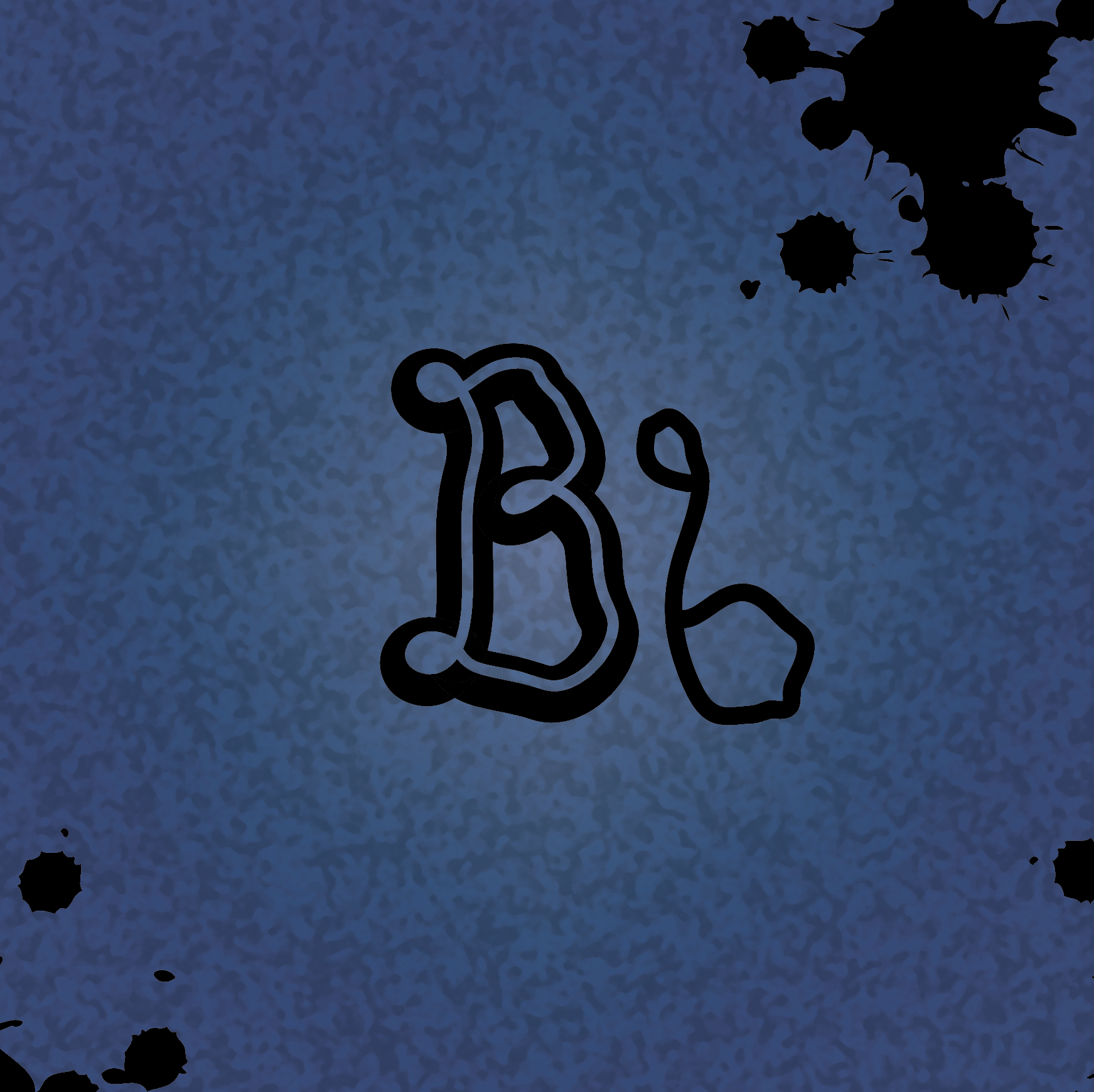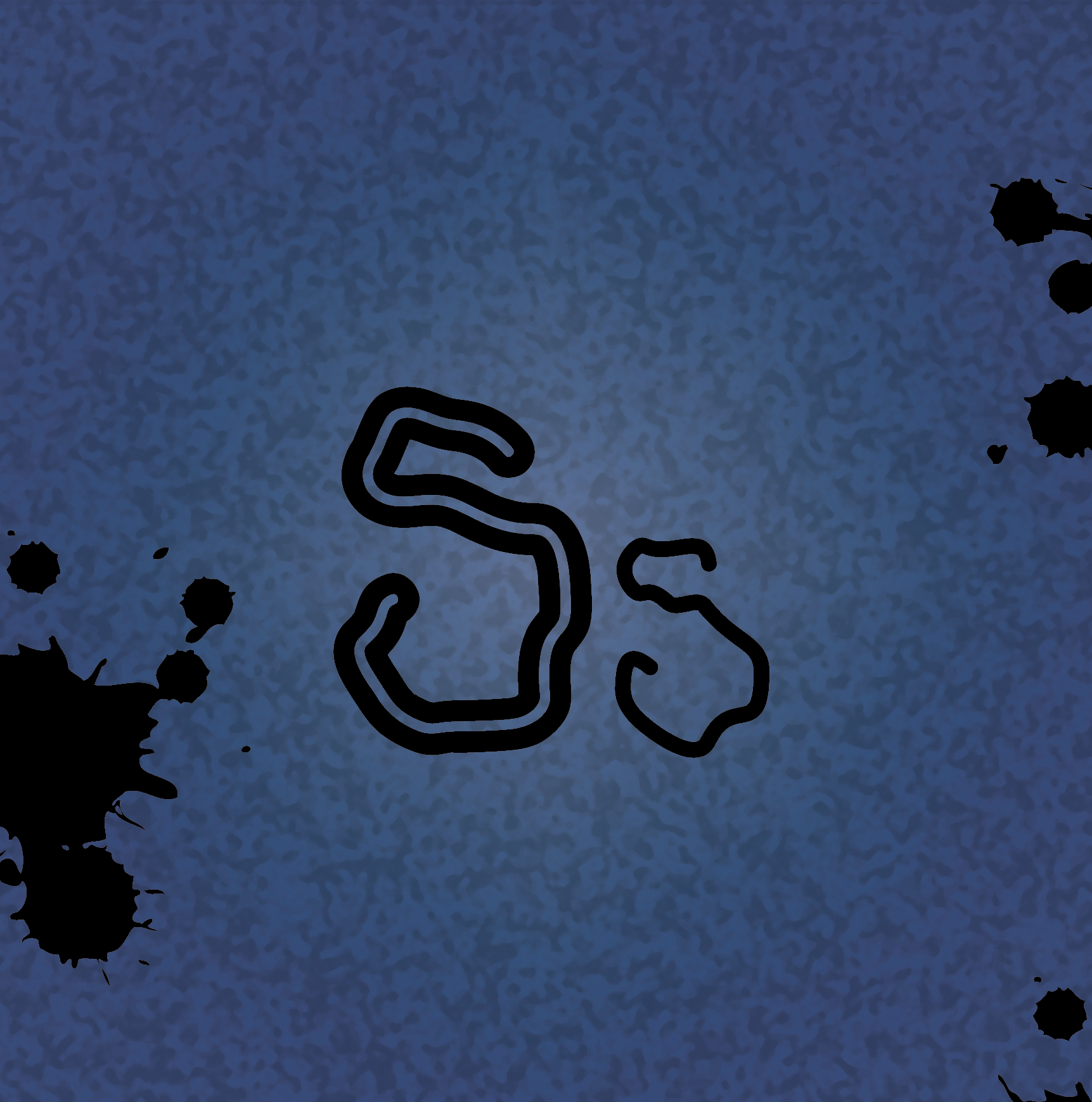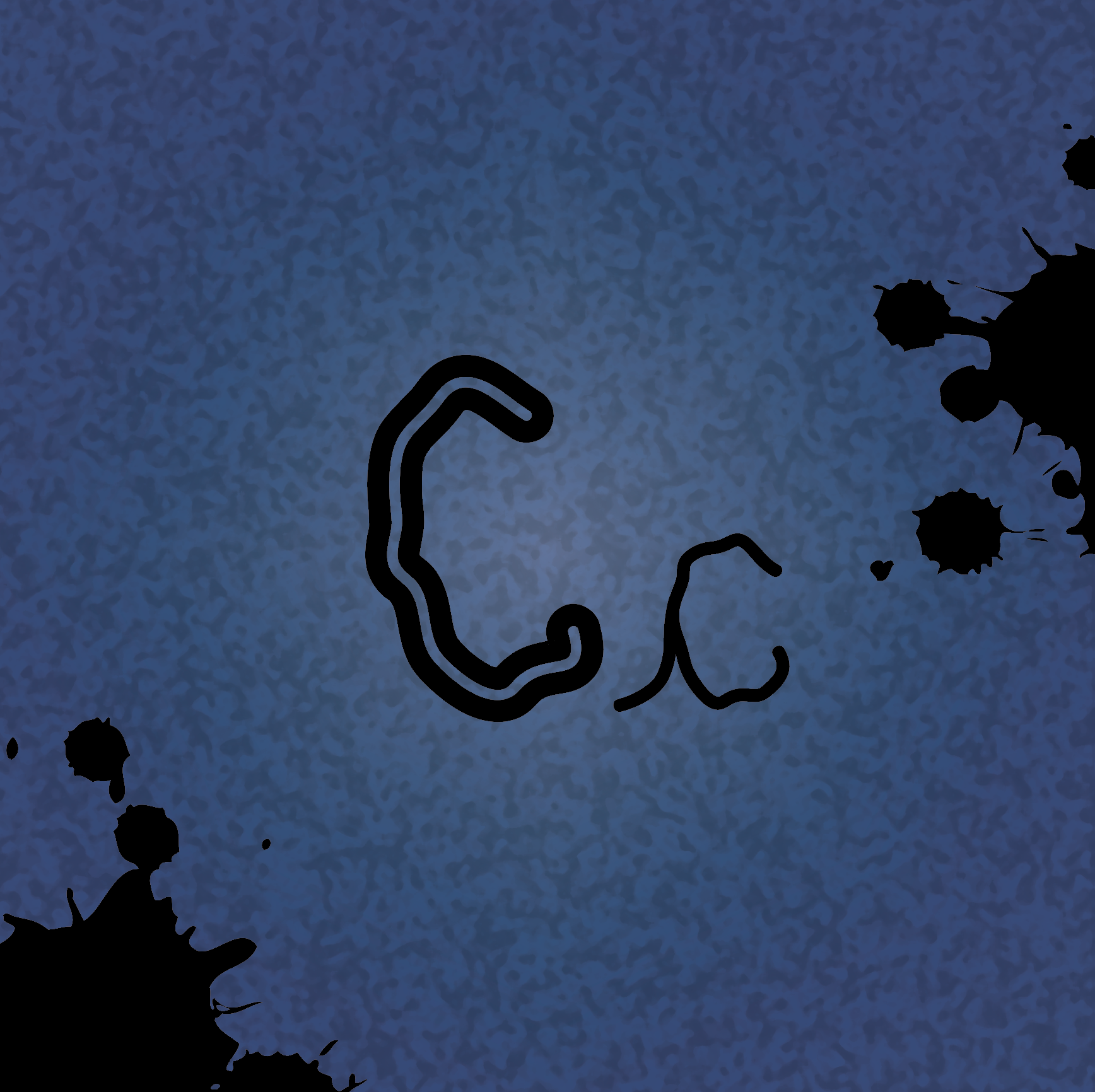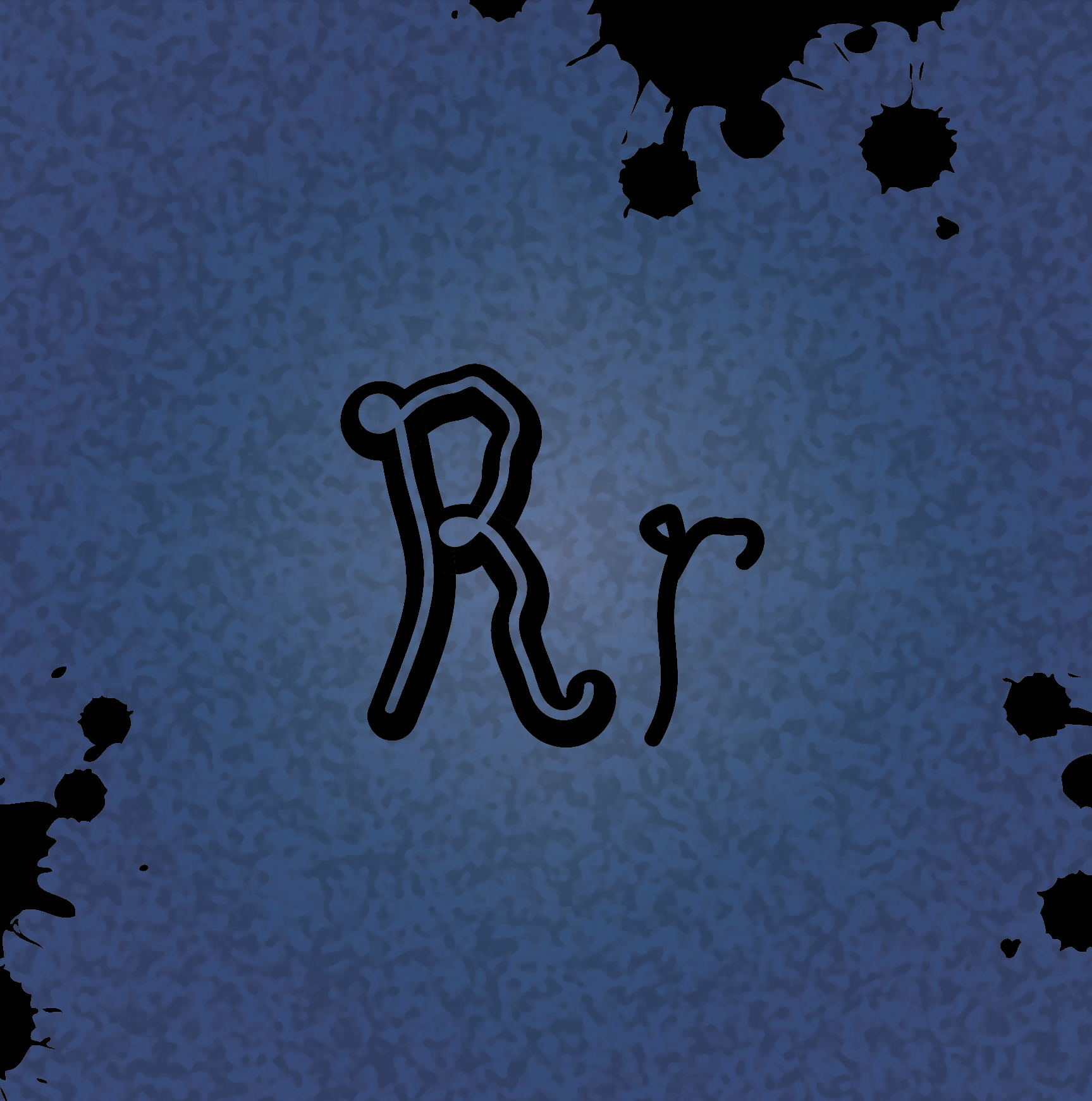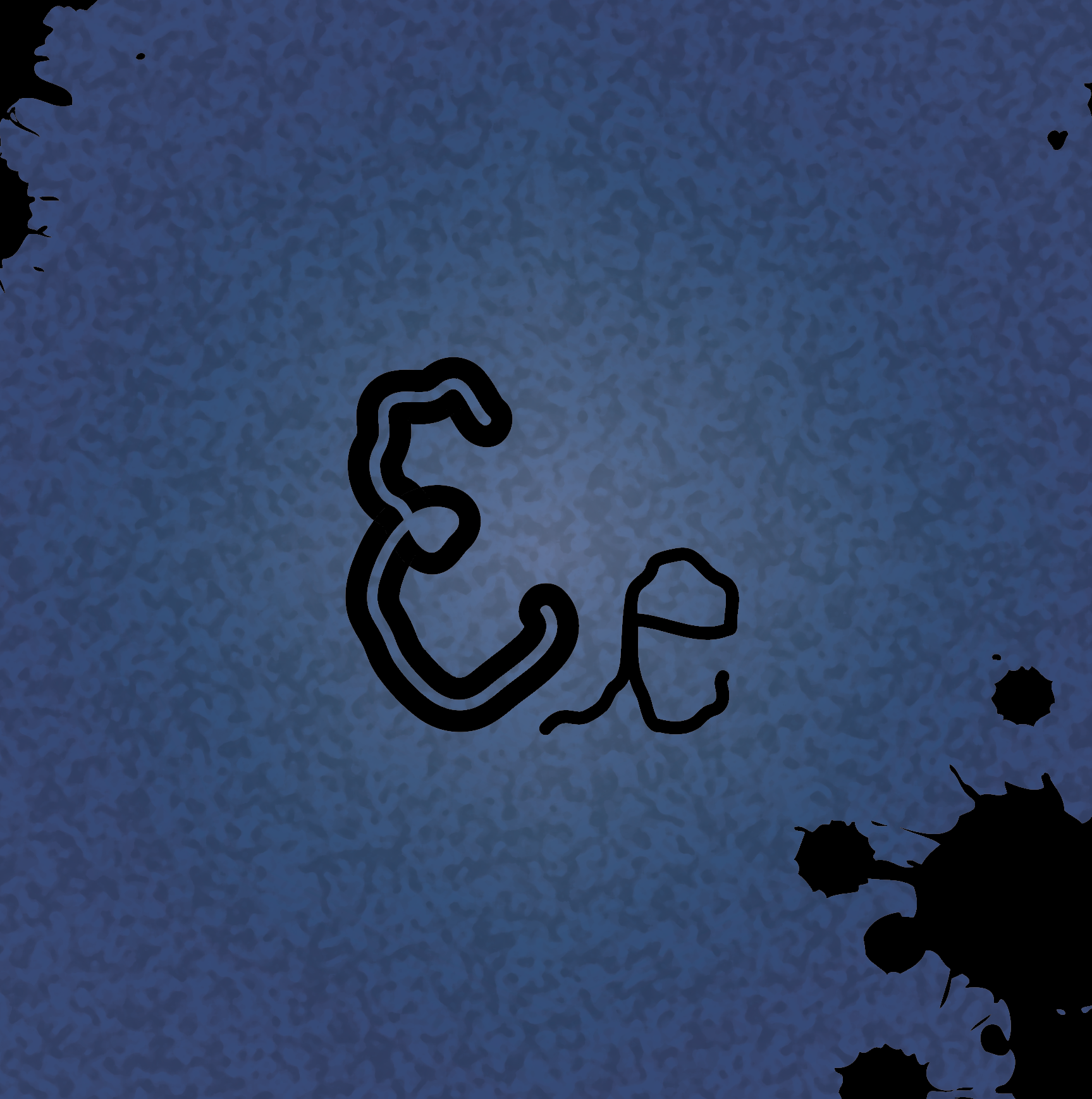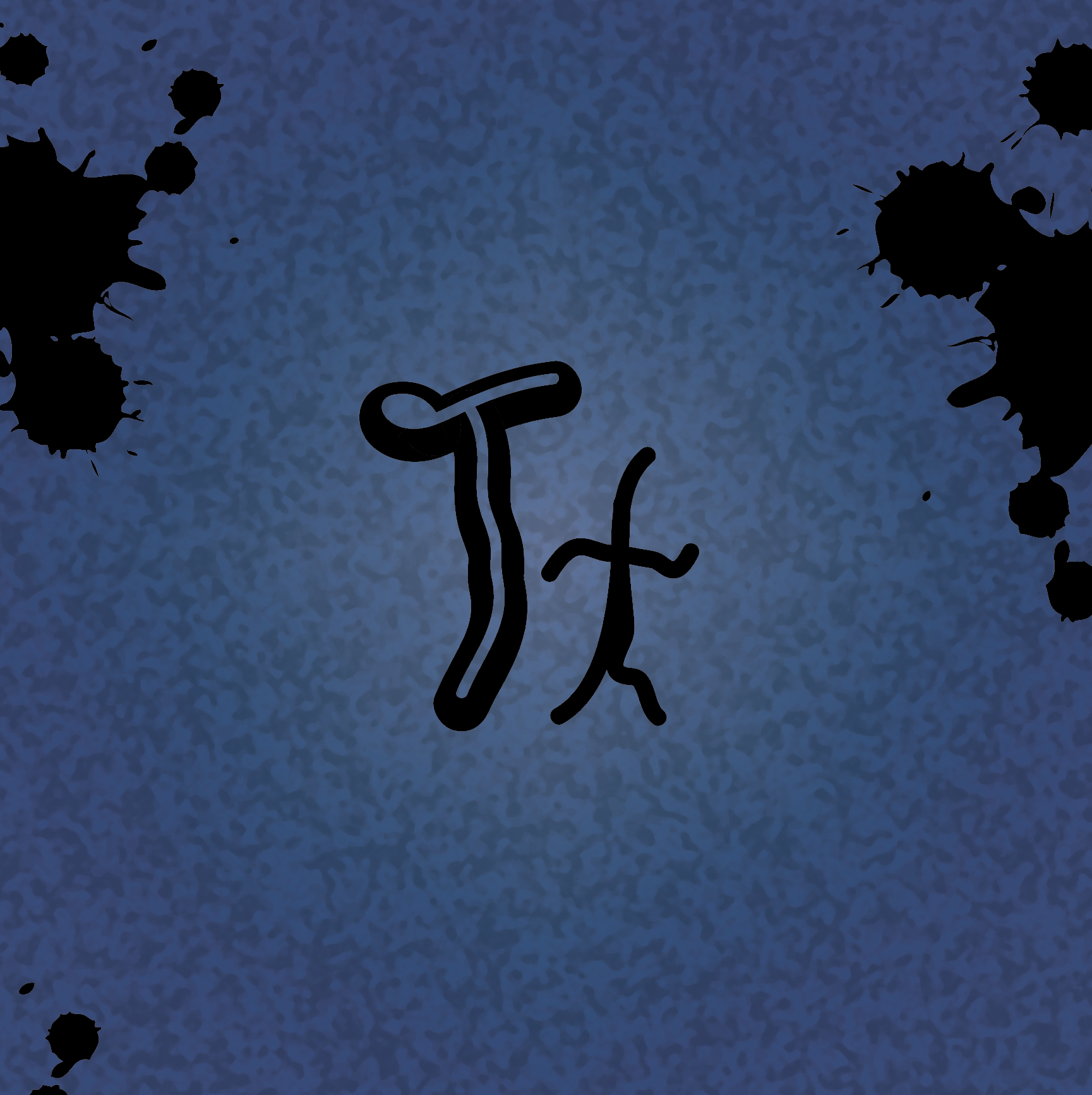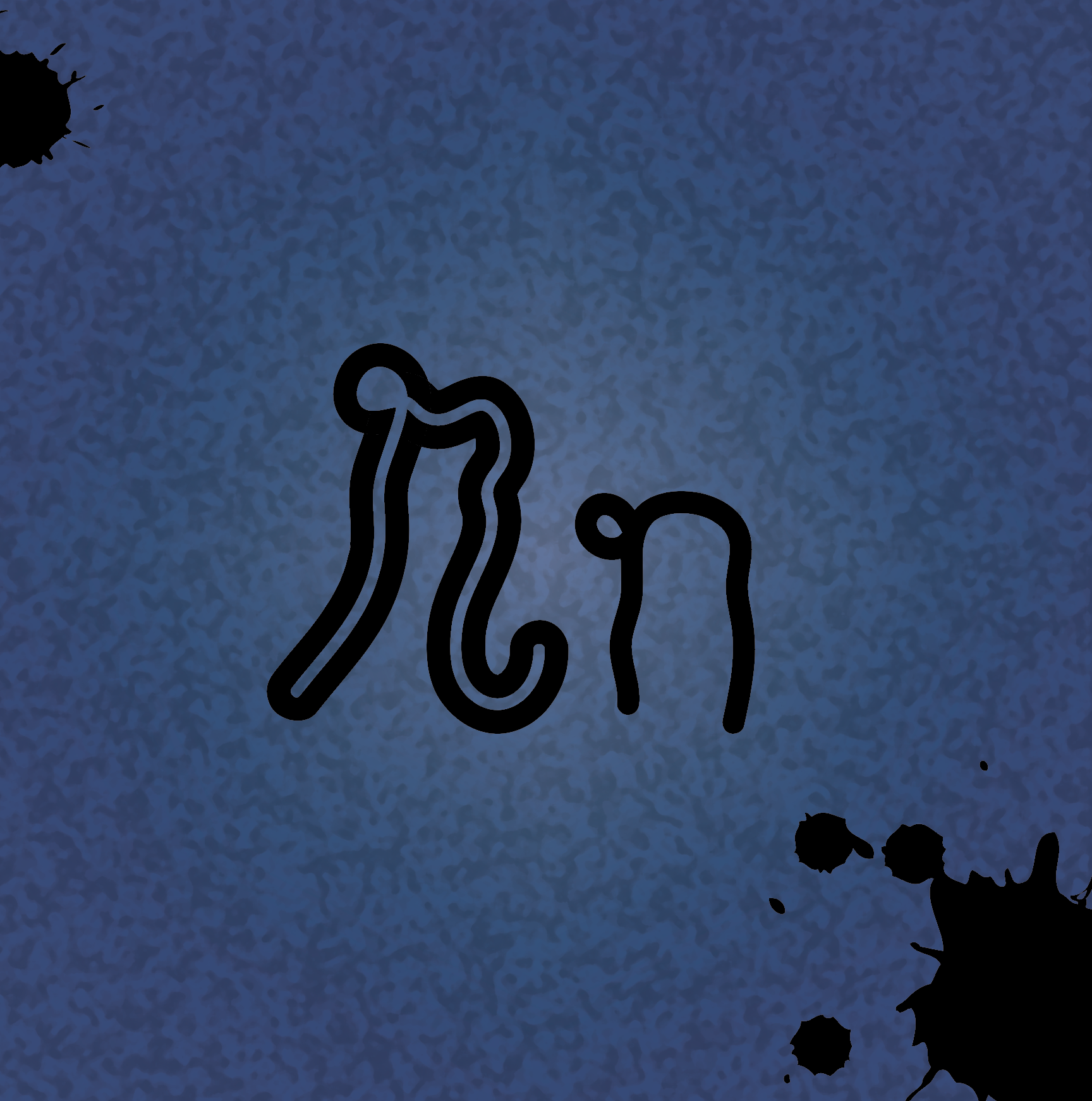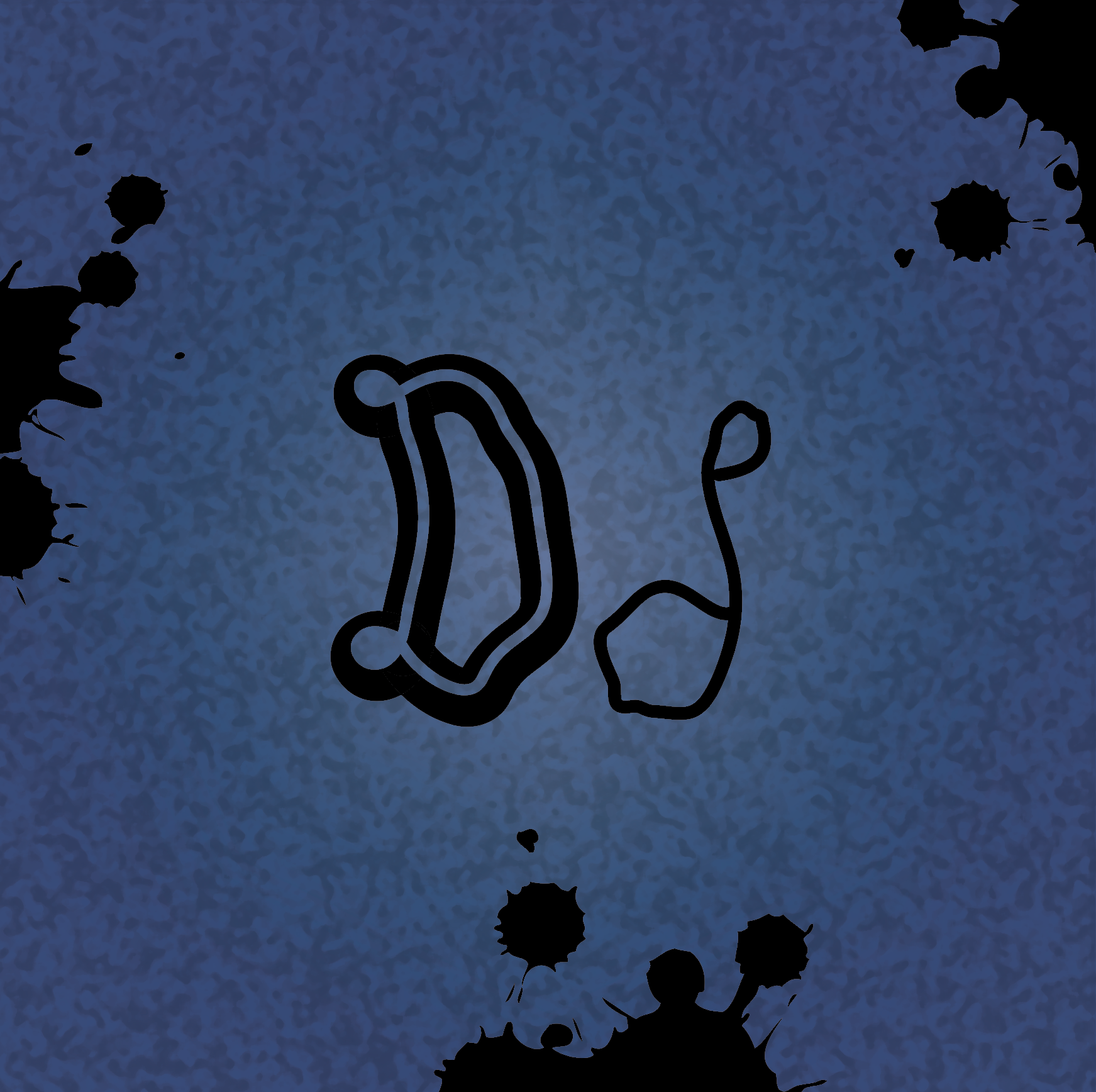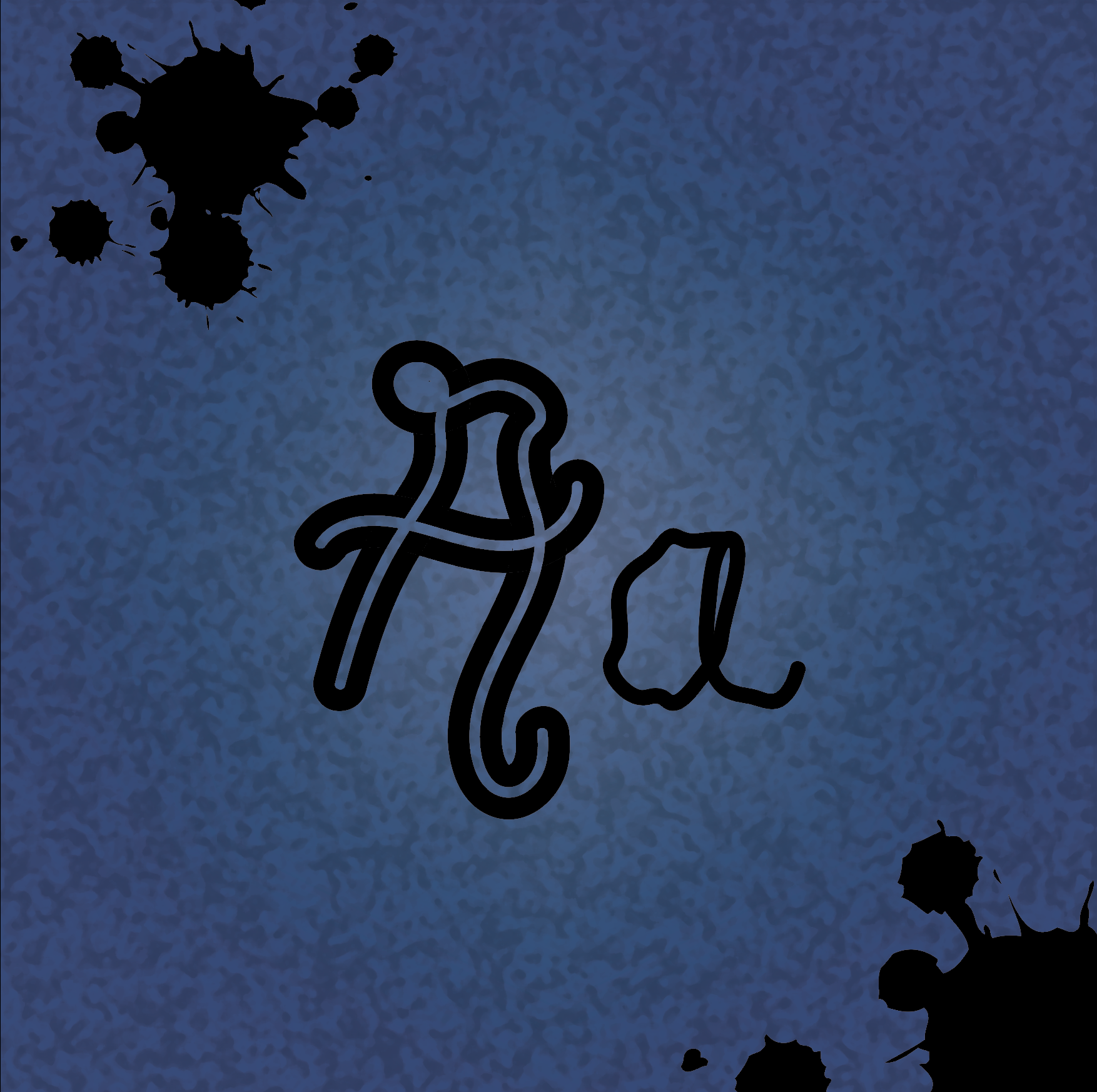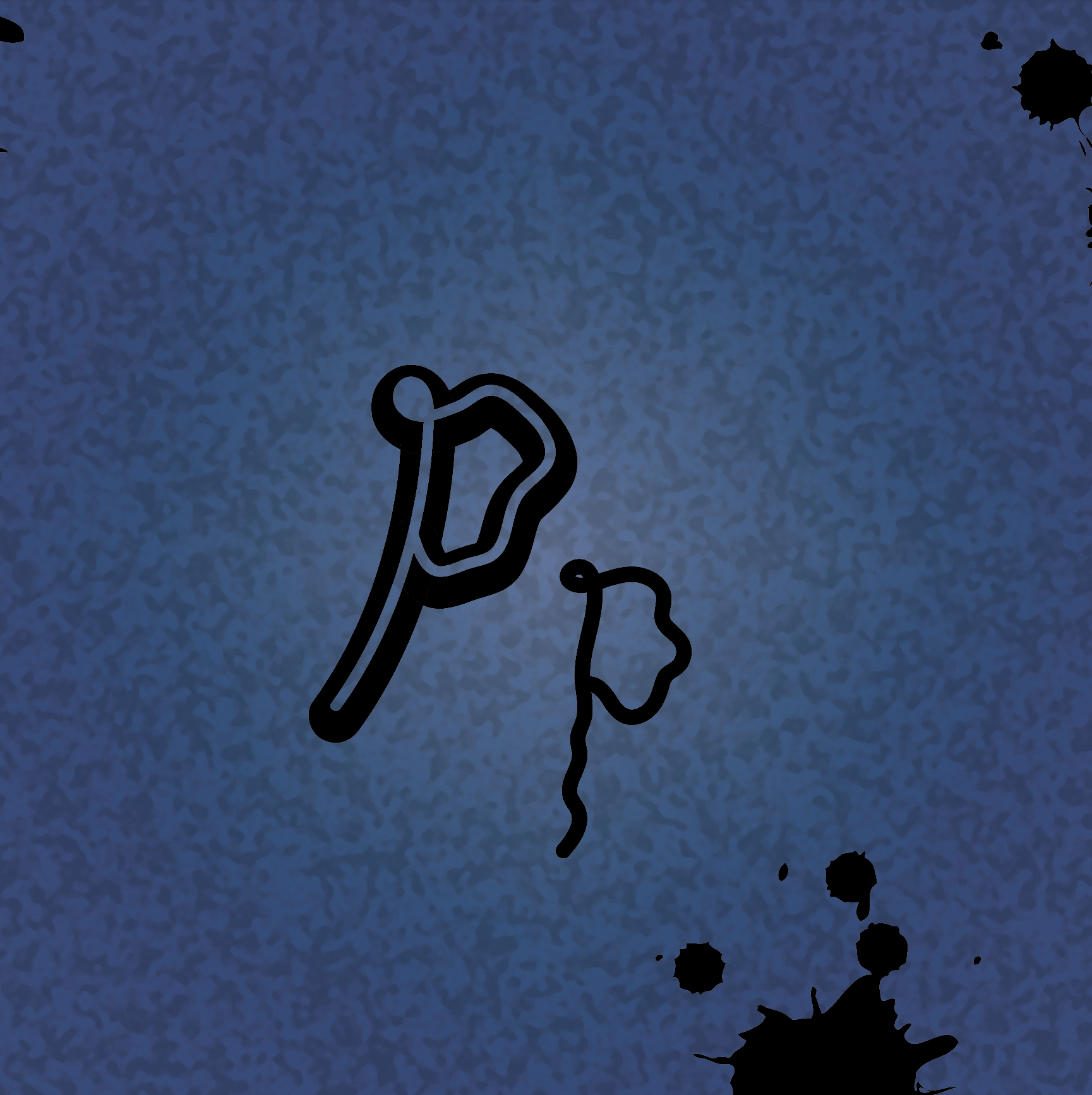
Squid Ink is a fluid, expressive typeface inspired by the organic movement of ink underwater. Each letterform feels slightly unruly—stretching, bleeding, and pooling in ways that mirror the unpredictability of hand-drawn marks. The font balances softness with edge, capturing a sense of motion and emotion rather than rigid perfection. Squid Ink embraces imperfection as personality, making it ideal for designs that want to feel raw, tactile, and alive—where the type doesn’t just speak, but moves.